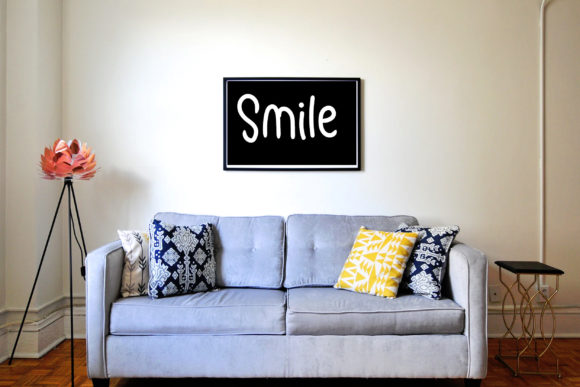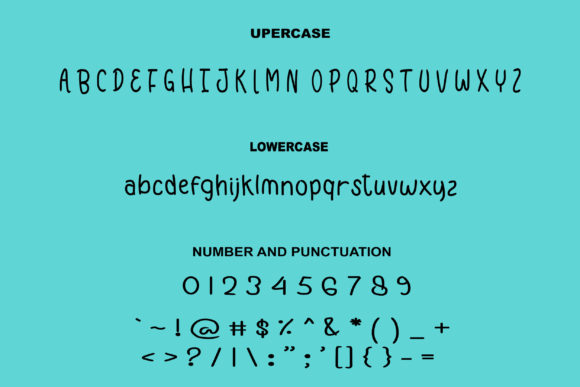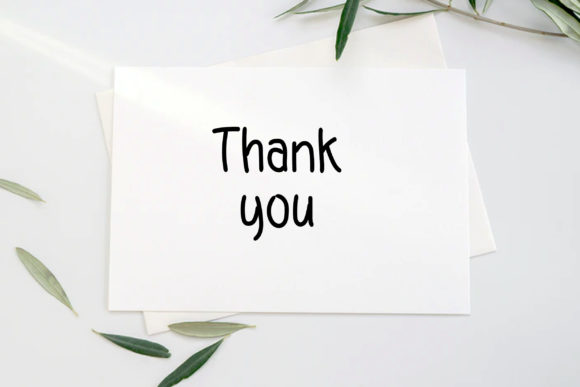
Introduction to Minimalist Room Font
Minimalist Room is a simple and natural handwritten font.
It will elevate a wide range of crafting ideas, from cards, to branding, labels and much more Add it confidently to your favorite creations and let yourself be amazed by the outcome generated.
Minimalist Room Font offers exceptional quality and versatility, making it a valuable addition to your design toolkit. Whether you’re creating for personal projects or commercial use, Minimalist Room Font delivers professional results.